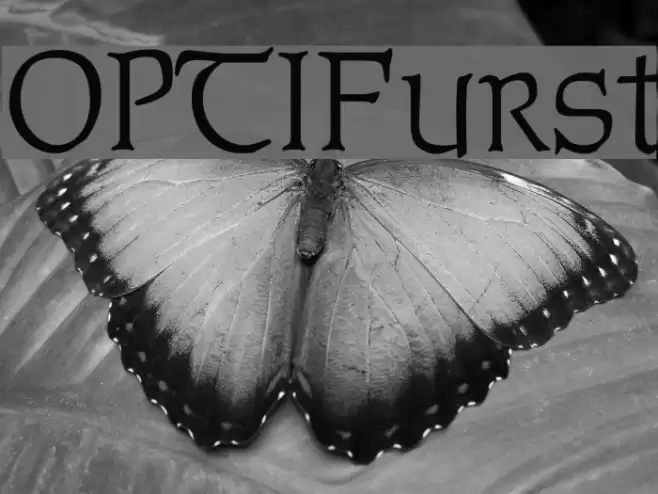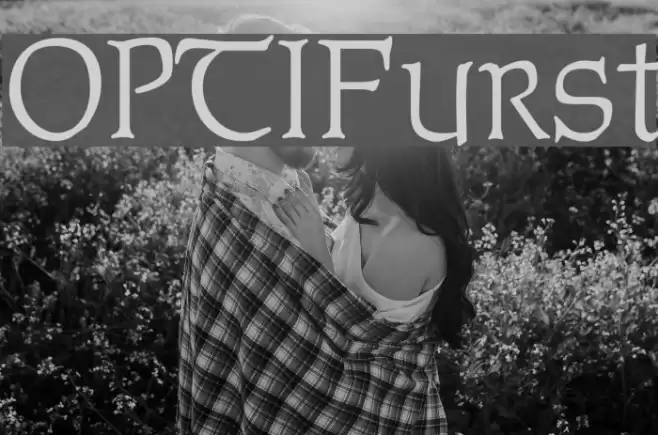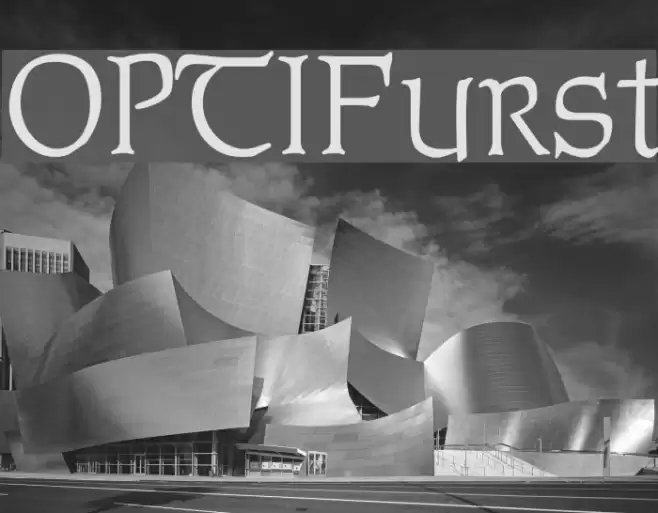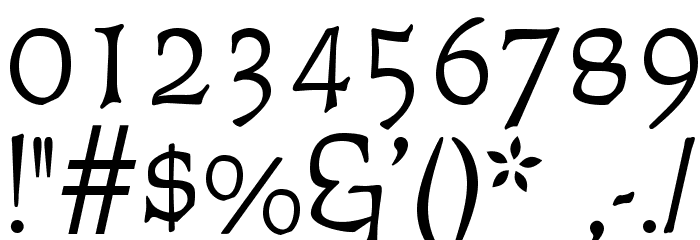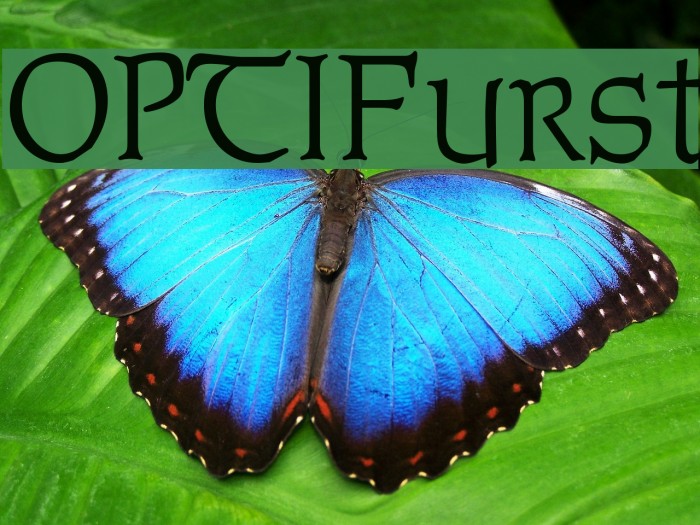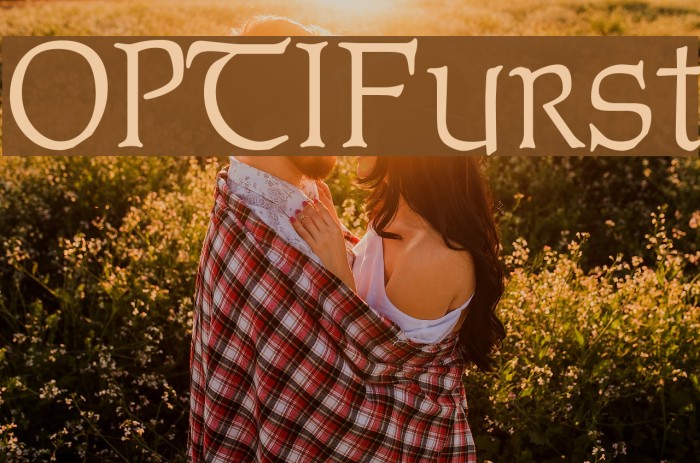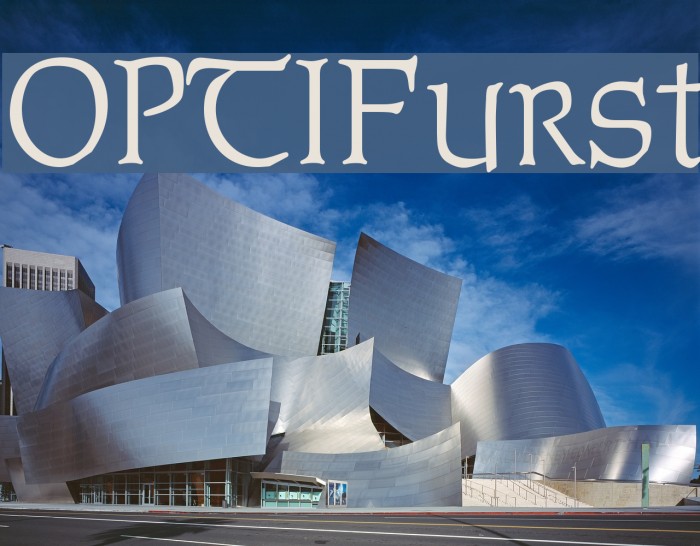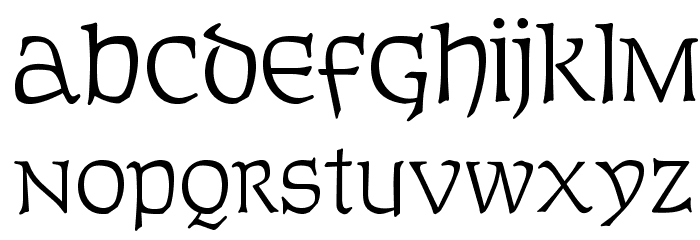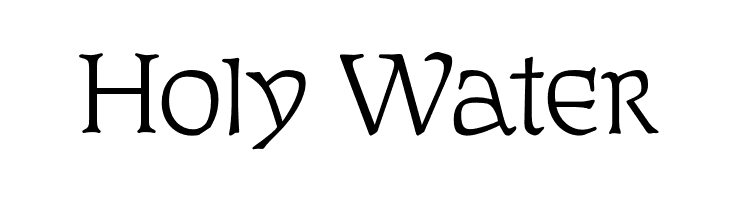
OPTIFurst
This font features a unique blend of medieval and modern design elements, characterized by sharp, angular serifs and a slightly condensed structure. The uppercase letters exhibit a strong presence with their bold strokes and distinctive curves, while the lowercase letters maintain a consistent style with a touch of elegance. The numerals are designed with a similar aesthetic, ensuring uniformity across all characters. Special characters are crafted with attention to detail, enhancing the font's overall versatility. This font's distinct style makes it suitable for projects that require a historical or fantasy theme, while still maintaining readability.
A medieval-inspired font with sharp serifs and a modern touch.
- Proposed Projects: Ideal for fantasy book covers, historical event posters, or themed branding.
- Width: Condensed
- Overall Style: Vintage